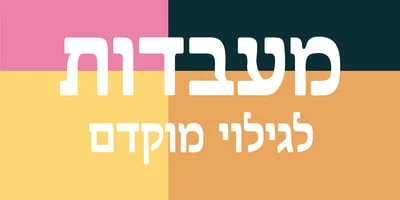
Sfina MF Font
Sfina MF Font is perfect for elegant branding projects, sophisticated marketing materials, premium product packaging, fashion magazine layouts, luxury service presentations, refined logo designs, and upscale editorial publications.
What makes Sfina MF Font exciting is its refined elegance and timeless sophistication, featuring graceful letterforms that combine classical beauty with modern versatility while delivering exceptional visual harmony and professional appeal.
The Sfina MF Font family includes Light, Regular, Medium, Bold, and Black weights, plus italic variations and stylistic alternates that enhance the font's elegant character and design possibilities.
Sfina MF Font embodies the essence of refined typography and sophisticated design sensibilities. This exceptional typeface represents the perfect balance between classical elegance and contemporary functionality, creating a versatile visual language that speaks to discerning audiences who appreciate quality craftsmanship and timeless aesthetic values. The font's graceful proportions and harmonious character make it an ideal choice for brands that want to communicate excellence, reliability, and sophisticated taste.
Professional designers and luxury brands consistently select Sfina MF Font for projects that require understated elegance and premium quality appearance. The typeface's refined construction and sophisticated personality make it exceptionally effective for high-end fashion, luxury goods, and premium services where visual excellence and brand credibility are essential. Each character has been meticulously designed to create seamless reading experiences while maintaining the distinctive elegance that sets premium brands apart from mass market competitors.
The versatility of Sfina MF Font extends across multiple professional applications, from corporate communications to editorial design. Its excellent readability at various sizes makes it suitable for both headline displays and extended text applications, while its sophisticated character ensures that content maintains premium appeal across different media formats. The font's timeless quality appeals to audiences who value enduring style over temporary design trends.
Luxury retailers, professional services, and premium brands frequently choose Sfina MF Font because of its ability to instantly convey quality and sophistication. The typeface's elegant aesthetic helps establish trust and credibility while appealing to customers who seek refined experiences and appreciate attention to detail in their purchasing decisions and brand relationships.